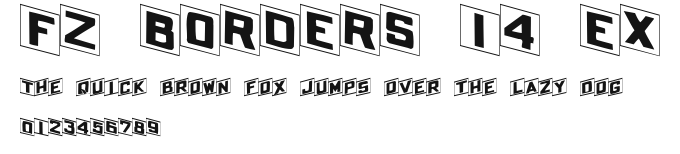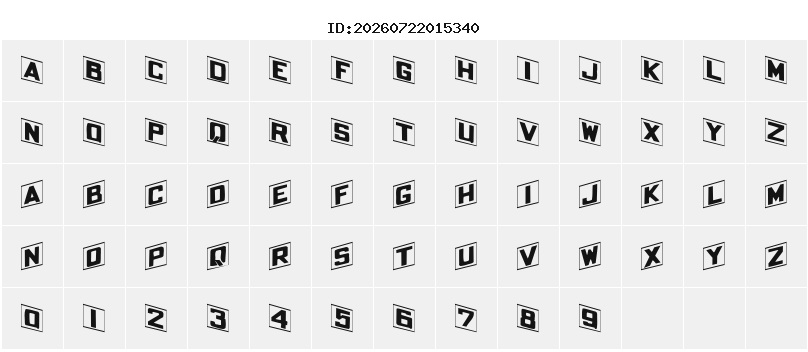
• Font Name: FZ BORDERS 14 EX
• Full Font Name: FZ BORDERS 14 EX
About FZ BORDERS 14 EX.ttf
FZ BORDERS 14 EX.ttf is a modern, elegant sans-serif font designed for ultimate readability and visual harmony. Perfect for branding, headlines, web design, and print materials.